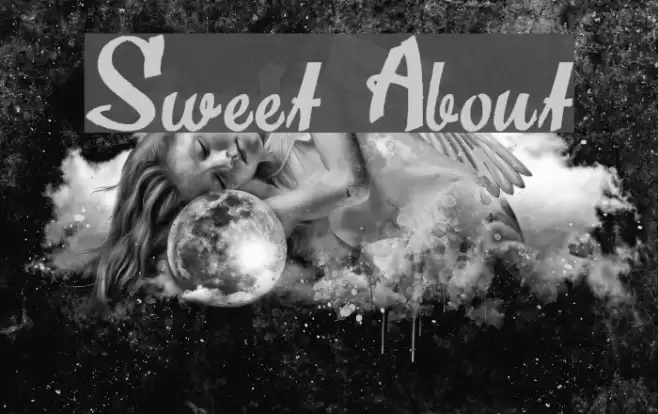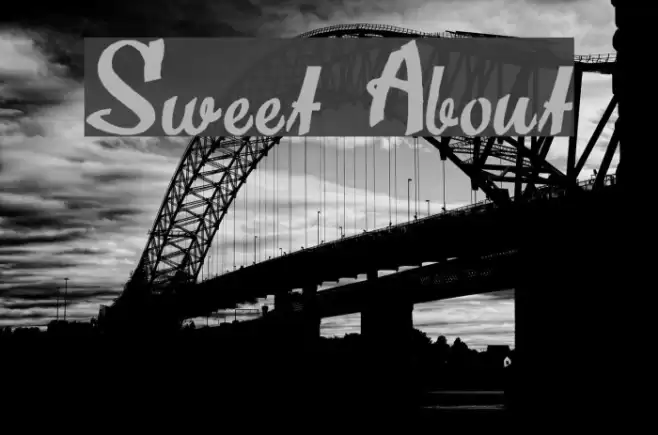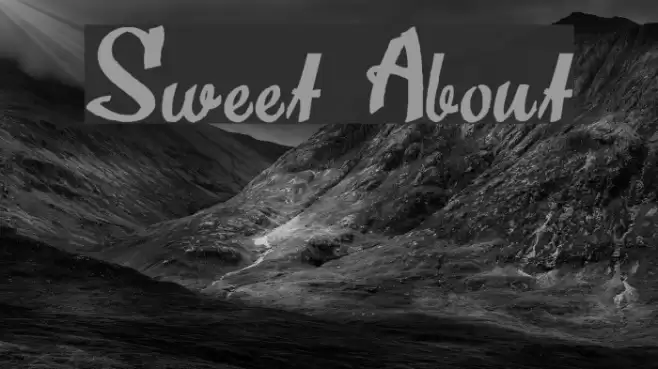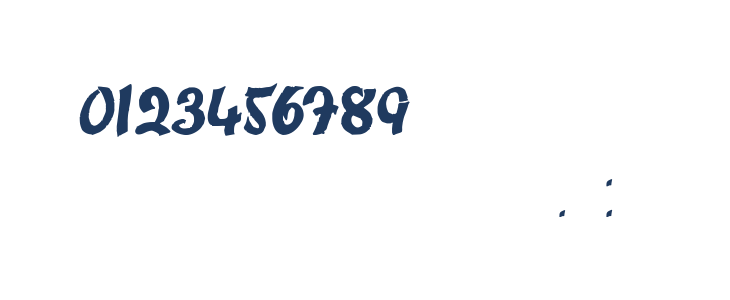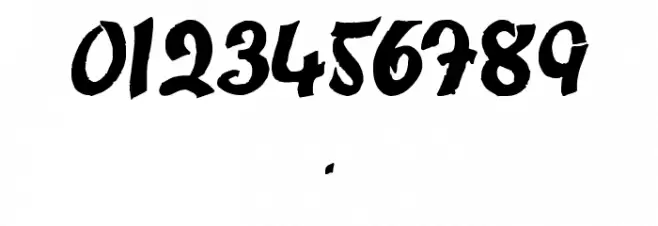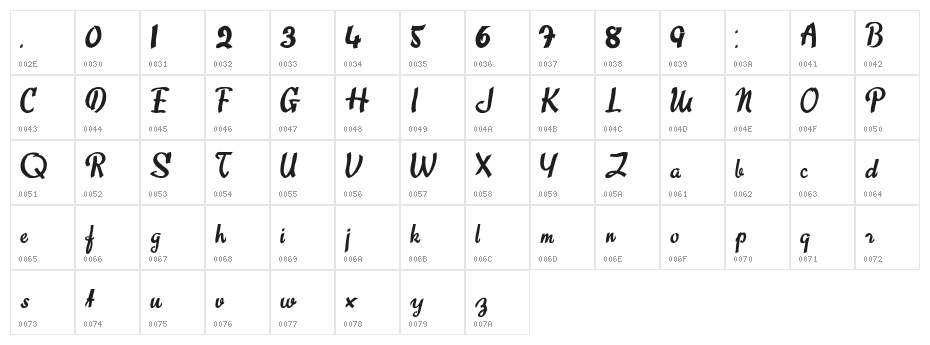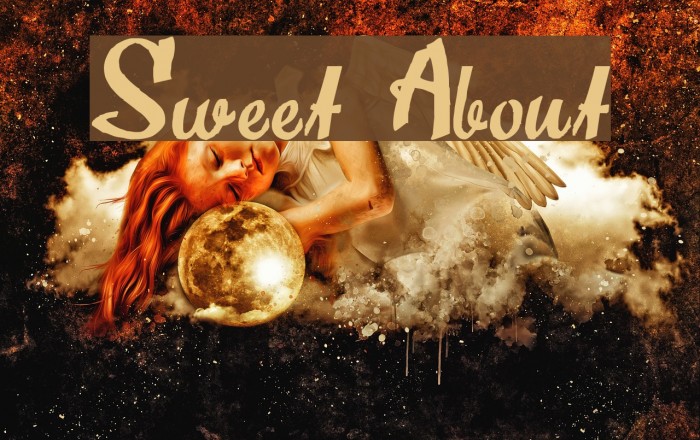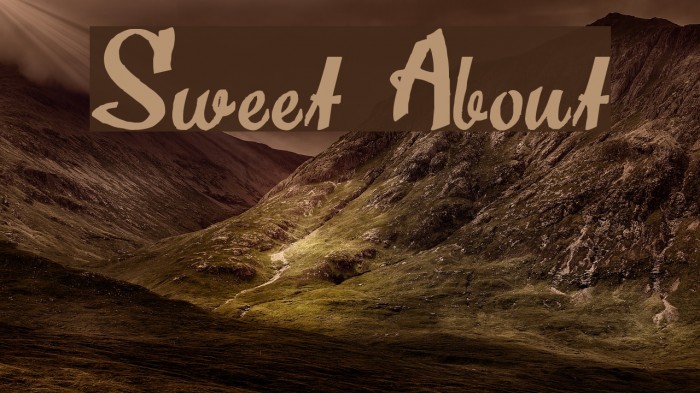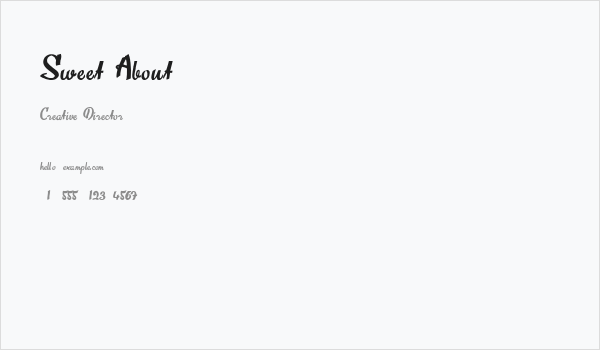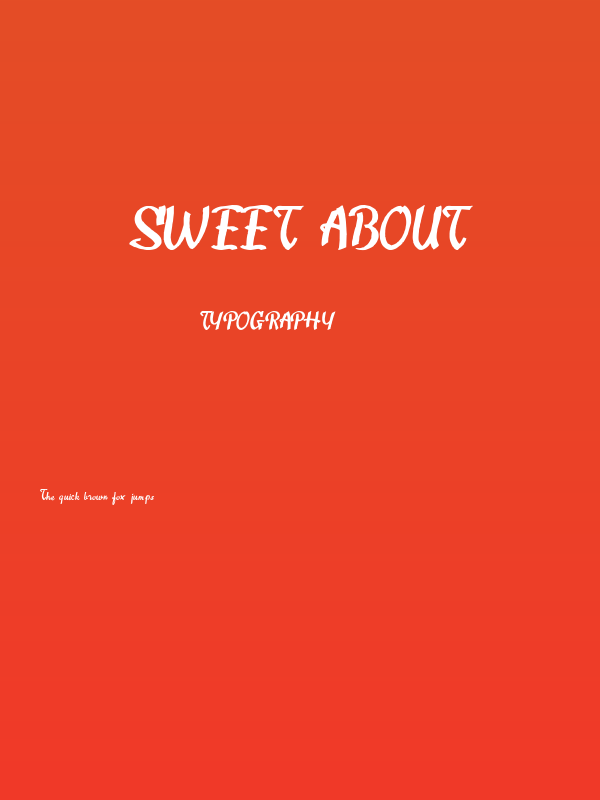
Sweet About Font
Sweet About Description
This font features a bold and expressive script style with a dynamic flow, characterized by its thick strokes and slightly slanted characters. The uppercase letters exhibit a strong presence with decorative flourishes, while the lowercase letters maintain a more subtle elegance. The numerals are robust and consistent with the overall style, providing a cohesive look. The font's unique character is further enhanced by its playful yet sophisticated appearance, making it suitable for a variety of creative applications.
A bold, expressive script font with dynamic flow and decorative flourishes from Uncategorized fonts.
- Proposed Projects: Ideal for branding, invitations, posters, and creative design projects that require a touch of elegance and flair.
- Use Case: Logos, Headlines, Invitations